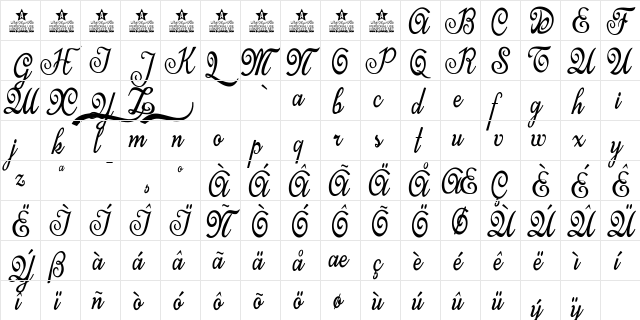
Last Frontier Personal Use Regular
| Foundry | Billy Argel |
| Designer | Billy argel |
Design Context for Last Frontier Personal Use Typeface
Last Frontier Personal Use echoes the hand-painted signage and woodblock typography of the American frontier, with a warm, rugged personality.
A natural fit for craft spirits, ranch branding, rodeo events, and Americana-inspired design work.